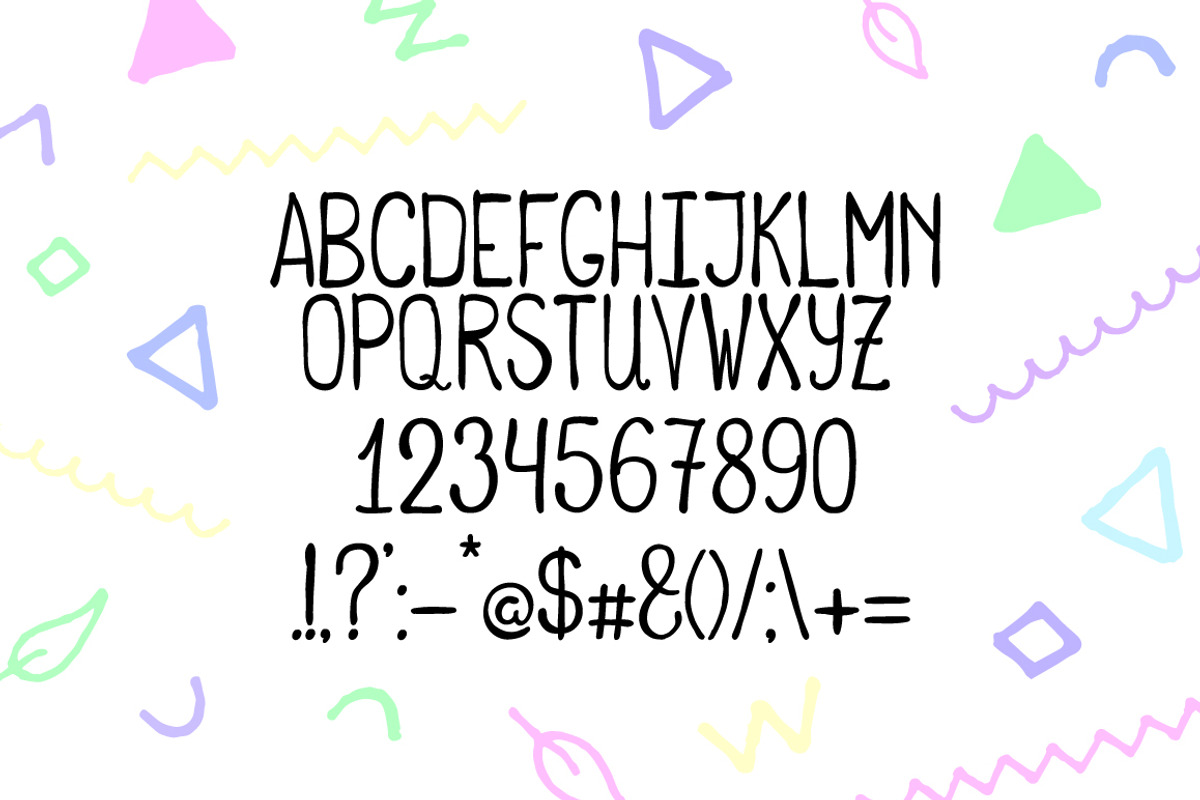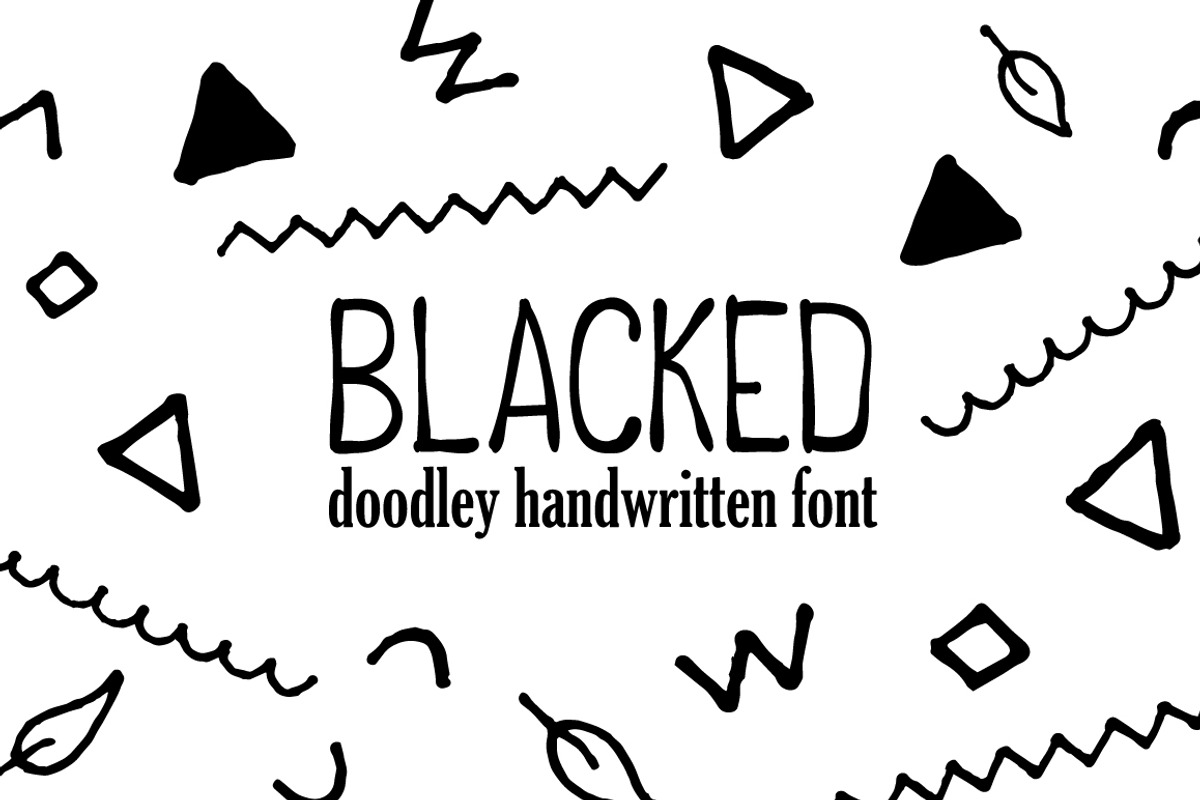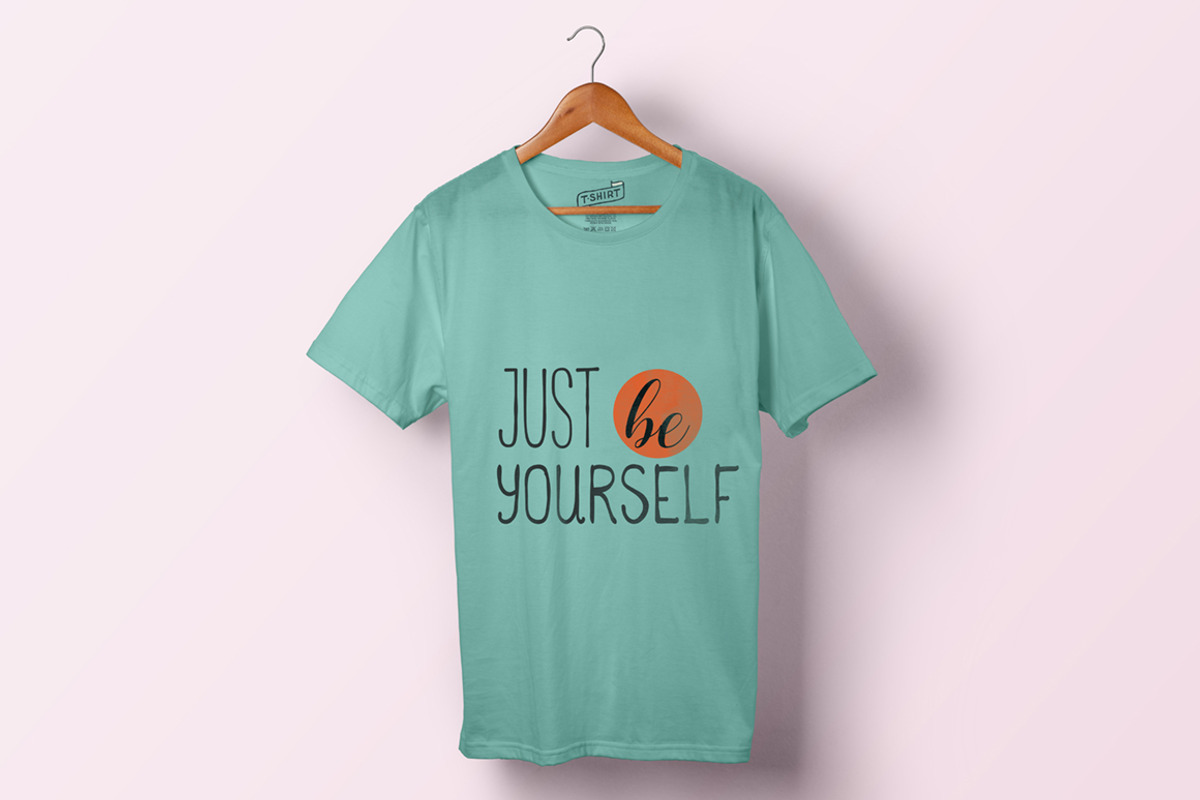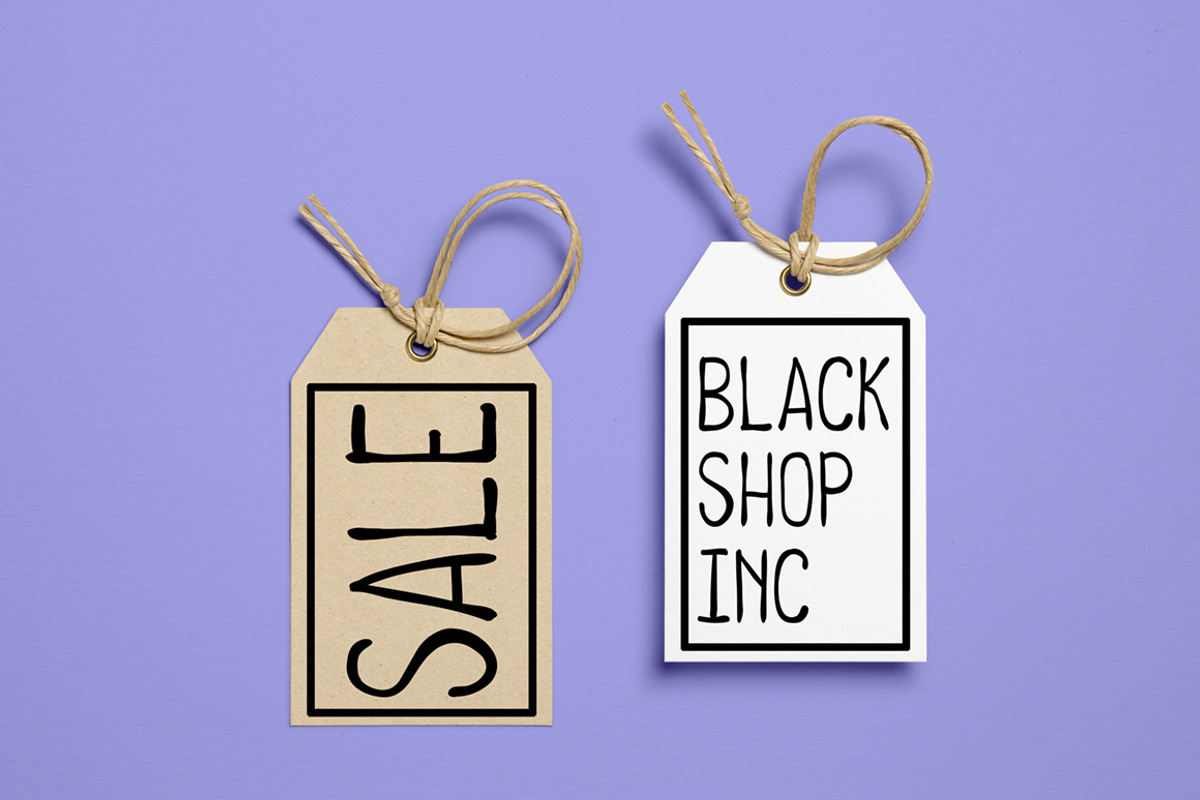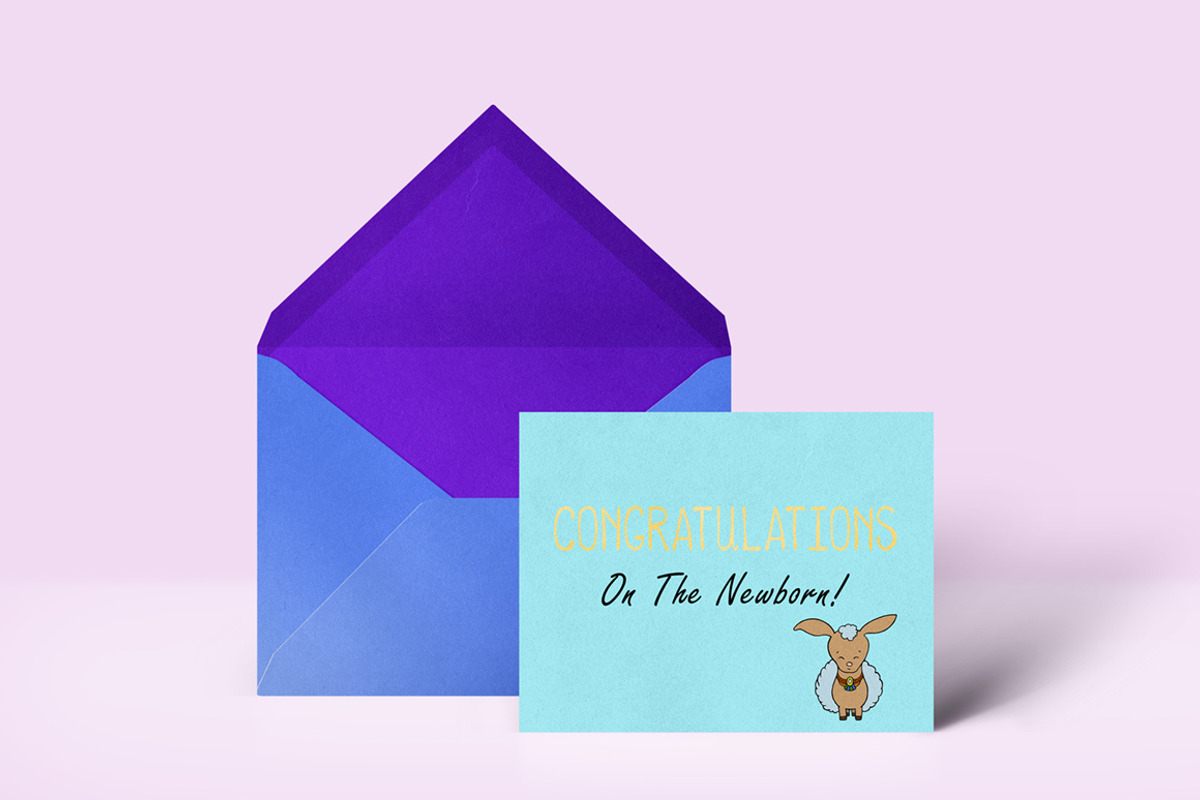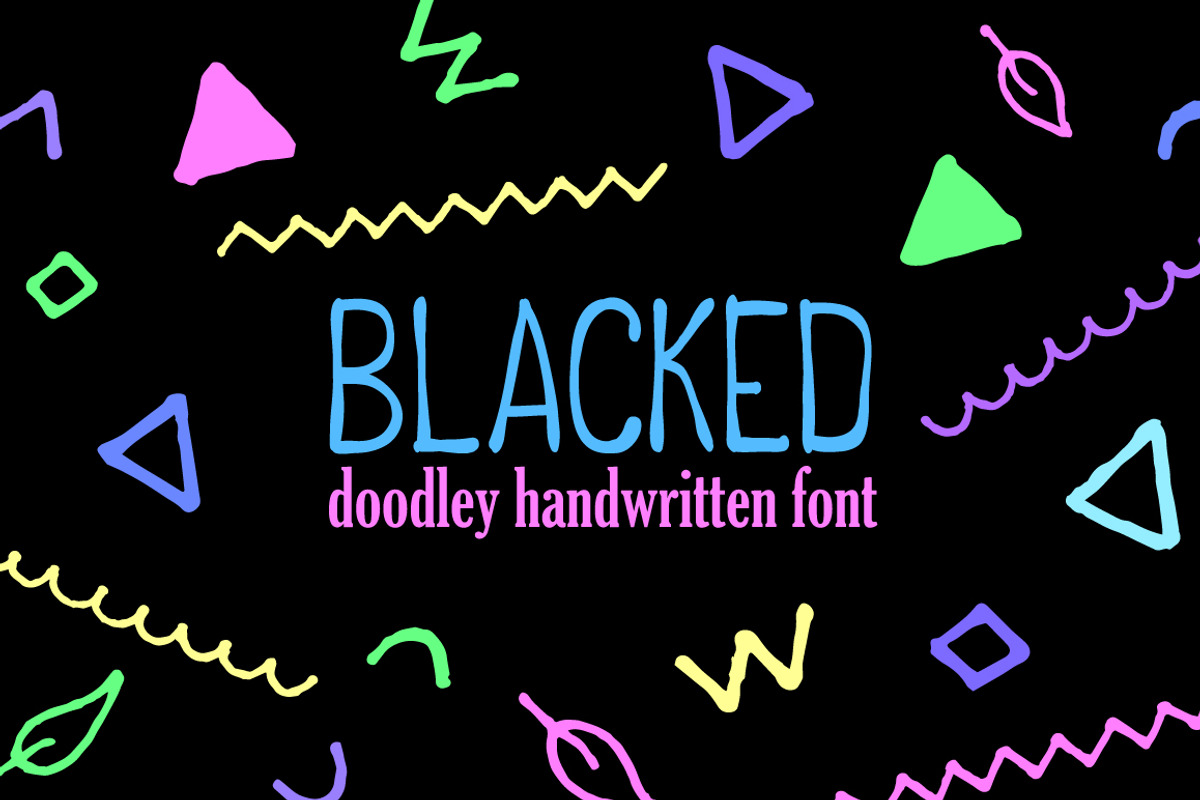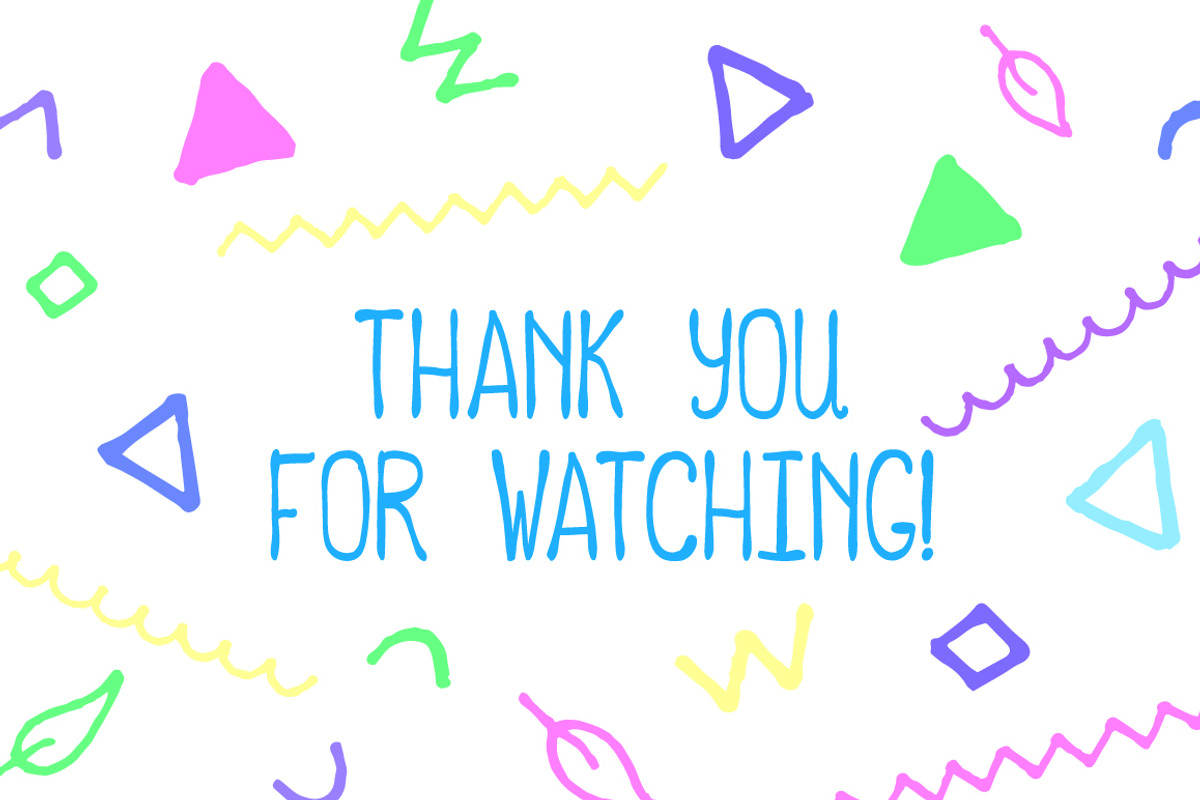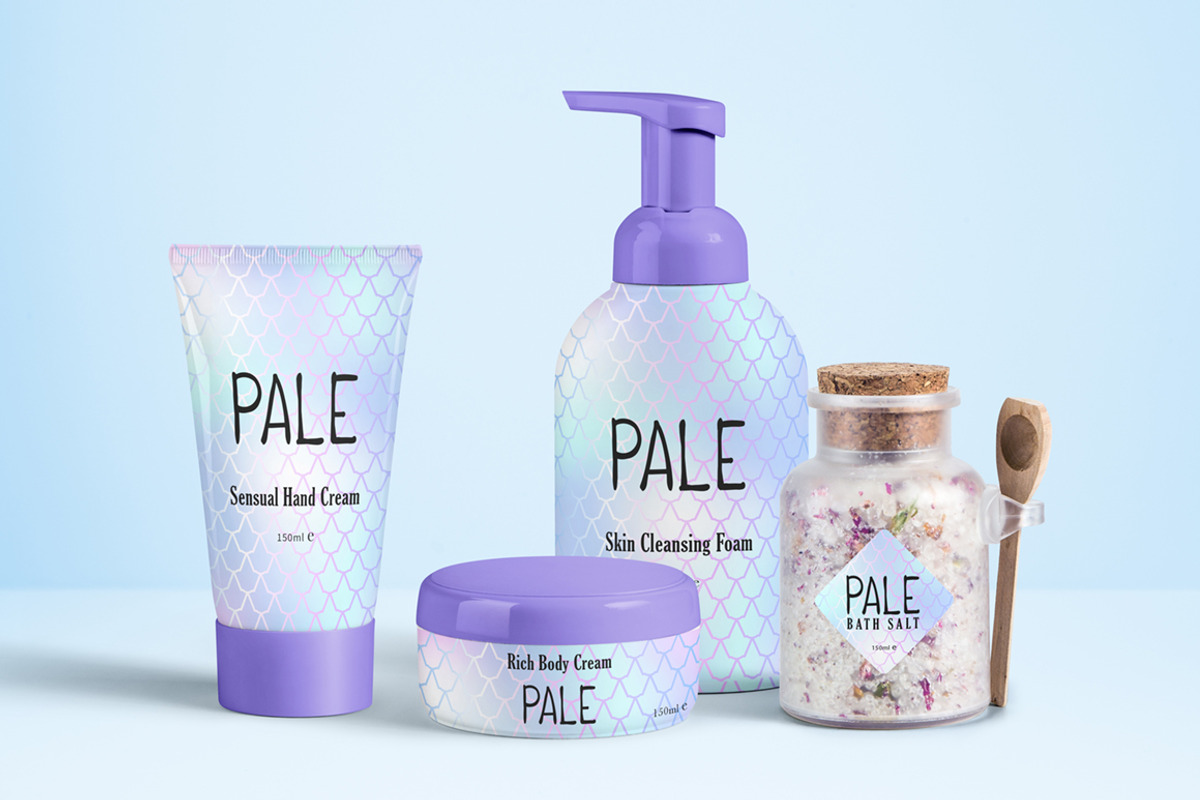
Blacked Doodle Handwritten Script
Blacked Handwritten script is created to be both doodley handwritten, and also truly versatile! Use it for the titles & names, as text headlines, for packaging design and for greeting cards!
Blacked has only capital letters - to be really expressive! Also, i contain numbers and wide range of symbols.
This script is based on my hand doodles made with black ink, converted into fat glyths. It is narrow, just because everyone likes narrow, but not too much - to stay informal & playful!